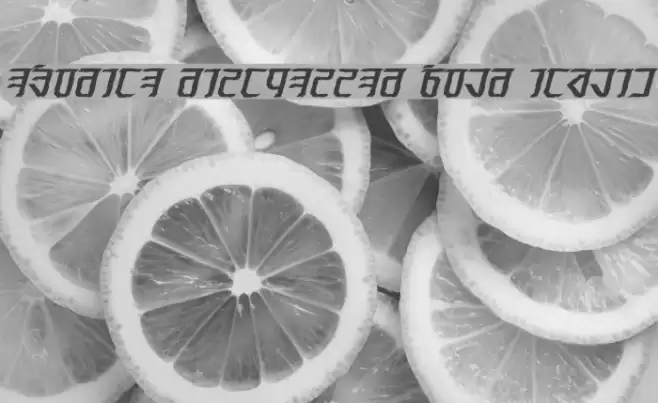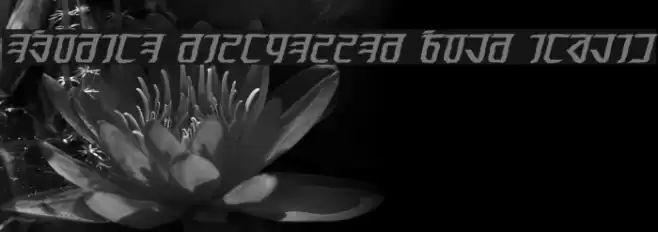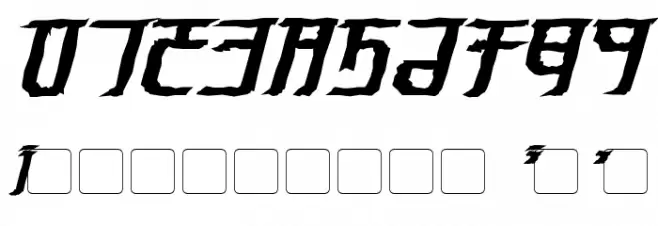
Exodite Distressed Bold Italic Font
Exodite Distressed Bold Italic Description
This font features a bold and italicized style with a distressed appearance, giving it a rugged and edgy look. The characters are sharply angled with a dynamic slant, creating a sense of movement and urgency. The distressed texture adds a layer of complexity, making it suitable for designs that require a gritty or rebellious aesthetic. The uppercase and lowercase letters maintain a consistent style, with the numbers and special characters following the same distressed theme. This font is ideal for projects that aim to capture attention with a bold statement.
A bold, italicized, and distressed font with a rugged, edgy appearance from Uncategorized fonts.
- Proposed Projects: Perfect for posters, album covers, video game graphics, and branding that requires a bold, rebellious look.
- Overall Style: Modern, Edgy